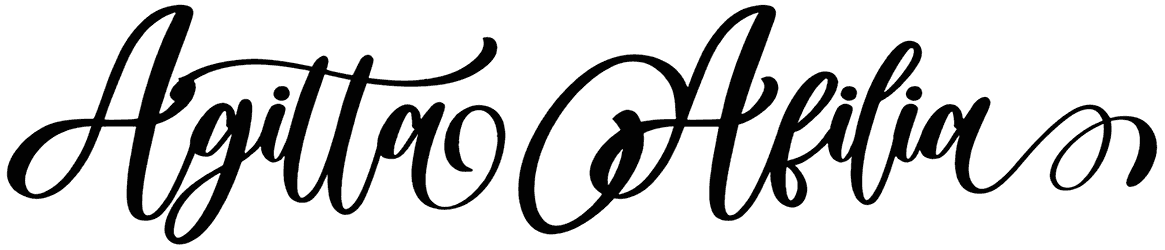
Using this incomparable wedding font in a variety of contexts is easy because it has a timeless look. Utilize the Mokalatte font for movie titles, branding, and other creative projects. It has a friendly effect on your designs, giving them a unique and feminine feel.
It comes in cursive body text while supporting only the numeric characters 0 and 1. If you use this, you can save your time and effort in designing one from scratch.
Font By Almarkhatype Studio